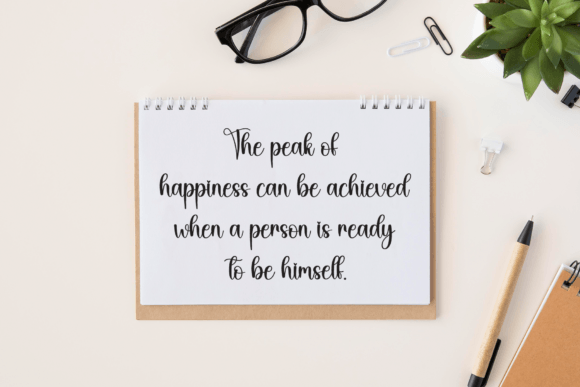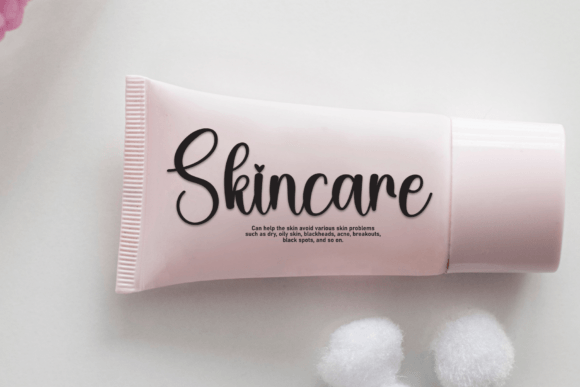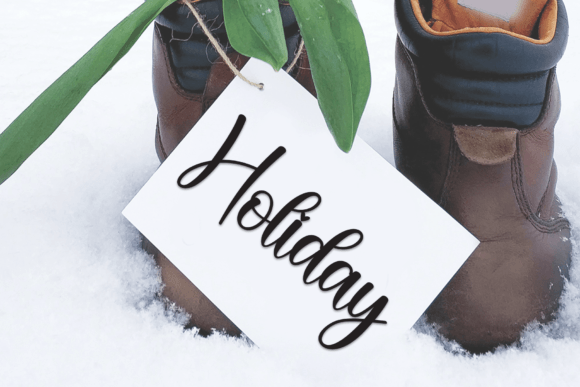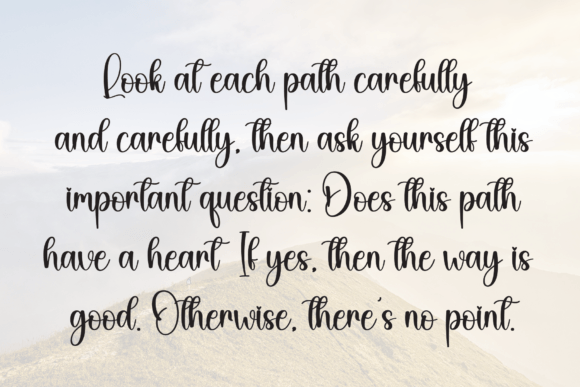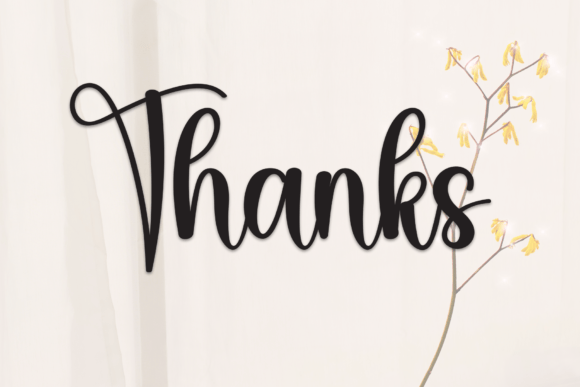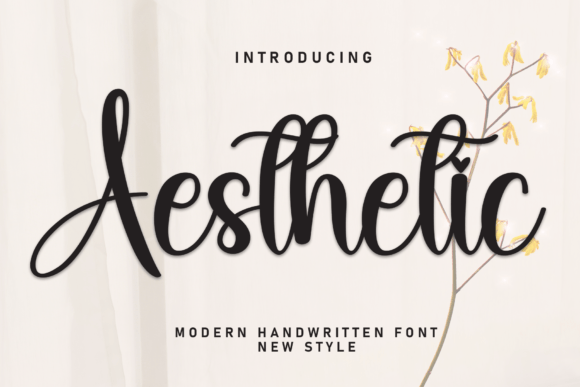
The Perfect Touch: Unveiling the Aesthetic Font
Do you ever find yourself browsing through design inspiration boards, feeling like something is missing in your latest project? Perhaps you’re struggling to convey the perfect balance of elegance and sophistication. If that’s the case, you’re not alone. Many designers face this challenge, but it’s about to get a whole lot easier.
Enter the Aesthetic Font, a beautifully crafted script font designed to bring a touch of refinement and poise to your designs. This lovely font was created with the intention of providing a refreshing alternative to traditional fonts, allowing you to add a personal touch to your projects. With its delicate strokes and elegant curves, the Aesthetic Font is an invaluable asset for any designer looking to elevate their work.
Aesthetic Font Key Features
- Unique Characteristics: This font features a unique blend of elegant and modern elements, with intricate details and subtle flair, making it perfect for creating eye-catching designs.
A Designer’s Honest Review of Aesthetic Font
Aesthetic Font is an interesting addition to the world of typography. I’ve spent some time working with it, and here’s my take.
- Unique Character: Aesthetic Font’s distinctive style is sure to grab attention. It’s perfect for designers looking to add a touch of whimsy to their projects.
- High-quality details: The font’s intricate details and flourishes are well-executed and add a level of sophistication.
- Readability: While Aesthetic Font is visually stunning, it can be challenging to read, especially in smaller sizes.
- Limited font weights: The font’s weight range is somewhat limited, which might restrict its use in certain applications.
Overall, Aesthetic Font is a beautiful and eye-catching font that’s perfect for designers looking to add a touch of elegance to their work. However, its limitations might make it less suitable for projects that require high readability or a wide range of font weights.